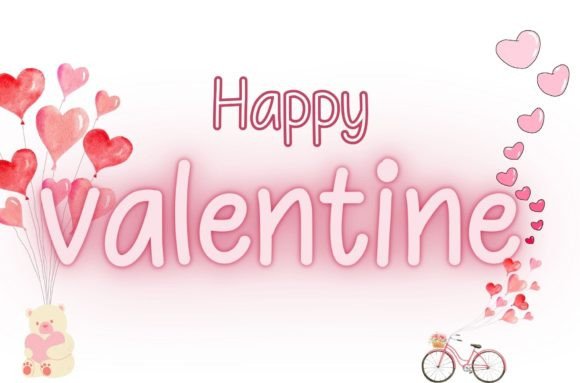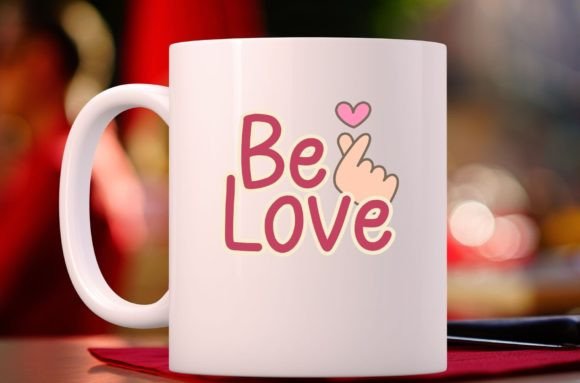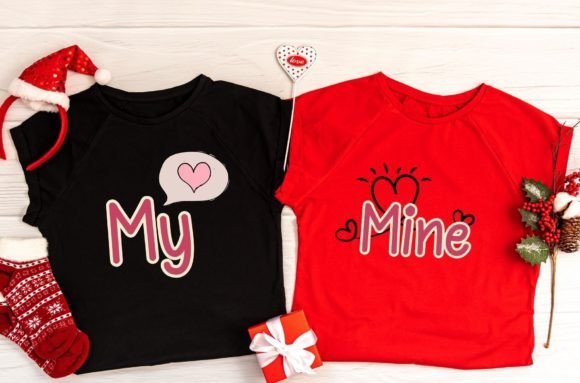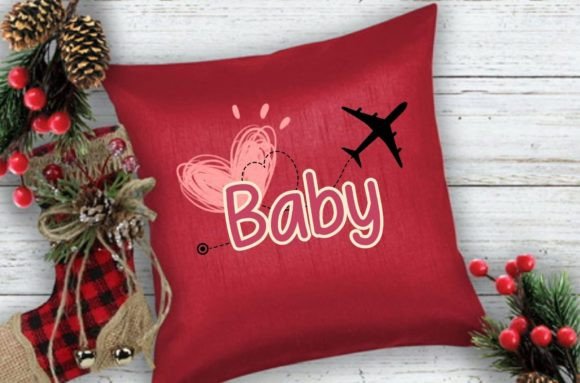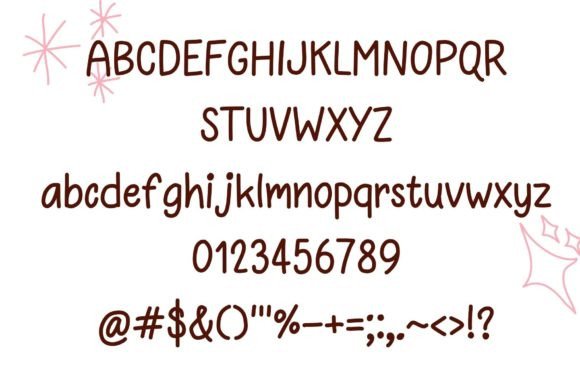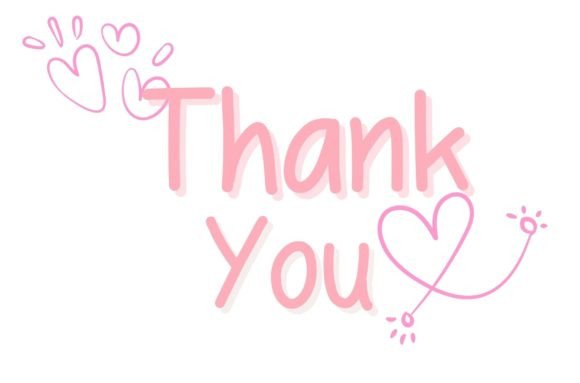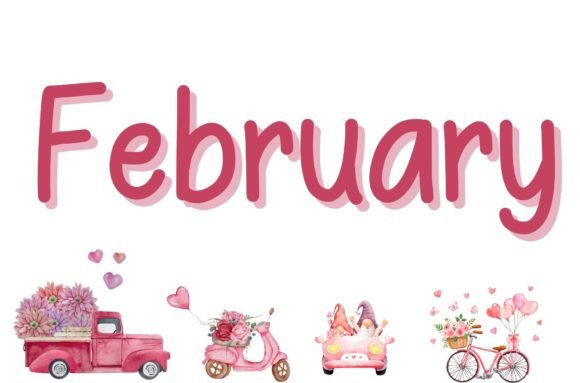
Introducing February Font: The Perfect Handwritten Font for Your Creative Projects
Are you a designer, crafter, or DIY enthusiast looking for a unique and versatile font to elevate your creative projects? Look no further than February Font, a beautiful handwritten font that is perfect for a wide range of applications. From logos and branding to wedding invitations, business cards, and social media graphics, February Font is the ideal choice for adding a personal touch to your designs.
What is February Font?
February Font is a carefully crafted handwritten font that is designed to bring a touch of warmth and personality to your designs. With its flowing lines and whimsical feel, this font is perfect for creating a sense of connection and community with your audience. Whether you’re designing for a client or working on a personal project, February Font is sure to make your designs stand out.
Uses for February Font
February Font is an incredibly versatile font that can be used in a wide range of creative projects, including:
- Logos and Branding: Create a unique and memorable logo for your business or brand with February Font.
- Wedding Invitations: Add a touch of romance and whimsy to your wedding invitations with this beautiful handwritten font.
- Business Cards: Stand out from the crowd with custom business cards featuring February Font.
- Greeting Cards: Create personalized greeting cards for any occasion with this lovely font.
- Posters and Magazines: Add a touch of personality to your posters and magazines with February Font.
- Social Media: Elevate your social media graphics with this beautiful handwritten font.
- Planner Prints: Create custom planner prints that are both functional and beautiful.
- Websites: Use February Font to add a personal touch to your website and make it stand out from the crowd.
Why Designers and Crafters Love February Font
February Font is especially useful for designers and crafters who work with children’s designs, as its playful and whimsical feel is sure to delight kids and adults alike. It’s also perfect for creating custom designs for:
- T-Shirts: Create custom t-shirt designs that are both fun and stylish.
- Mugs: Add a personal touch to your mug designs with February Font.
- Posters: Create eye-catching posters that are perfect for kids’ rooms or playrooms.
Tips for Using February Font
To get the most out of February Font, here are a few tips to keep in mind:
- Experiment with Colors: February Font looks great in a wide range of colors, so don’t be afraid to experiment and find the perfect hue for your design.
- Mix and Match: Combine February Font with other fonts or graphics to create a unique and eye-catching design.
- Keep it Simple: Don’t overcomplicate your design – February Font is beautiful on its own, so let it shine!
| Font Name | February Font |
| Author | PeamCreations |
February Font is a beautiful and versatile handwritten font that is perfect for designers, crafters, and DIY enthusiasts. With its wide range of uses and endless creative possibilities, it’s no wonder that this font is a favorite among creatives. Add February Font to your favorite creative ideas and watch as they come alive with personality and style.